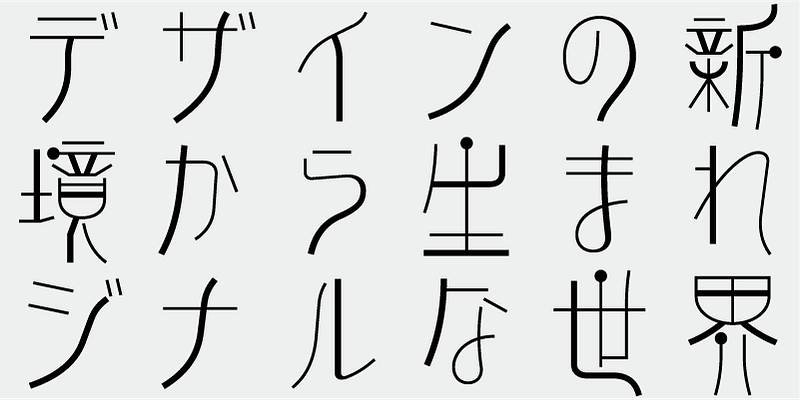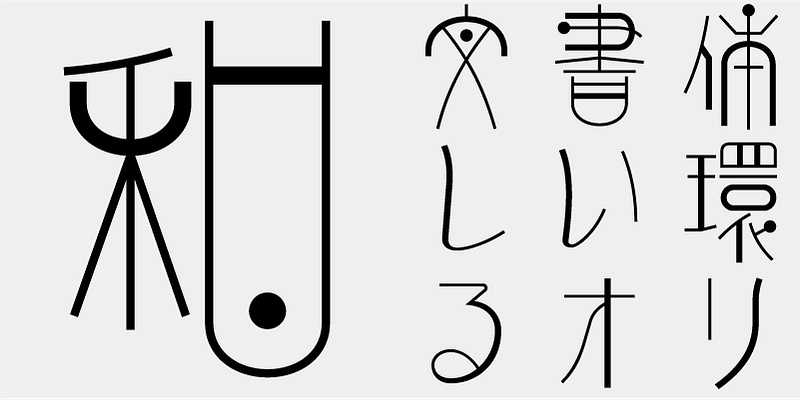
A stylish typeface inspired by seal script from over 2,000 years ago. An approachable design with varied element thickness.
This font includes the top 1,000 kanji characters selected from usage frequency lists compiled by newspaper companies, publishers, and the National Institute for Japanese Language and Linguistics, plus 206 additional characters such as kana, alphanumerics, and carefully selected symbols and punctuation marks.